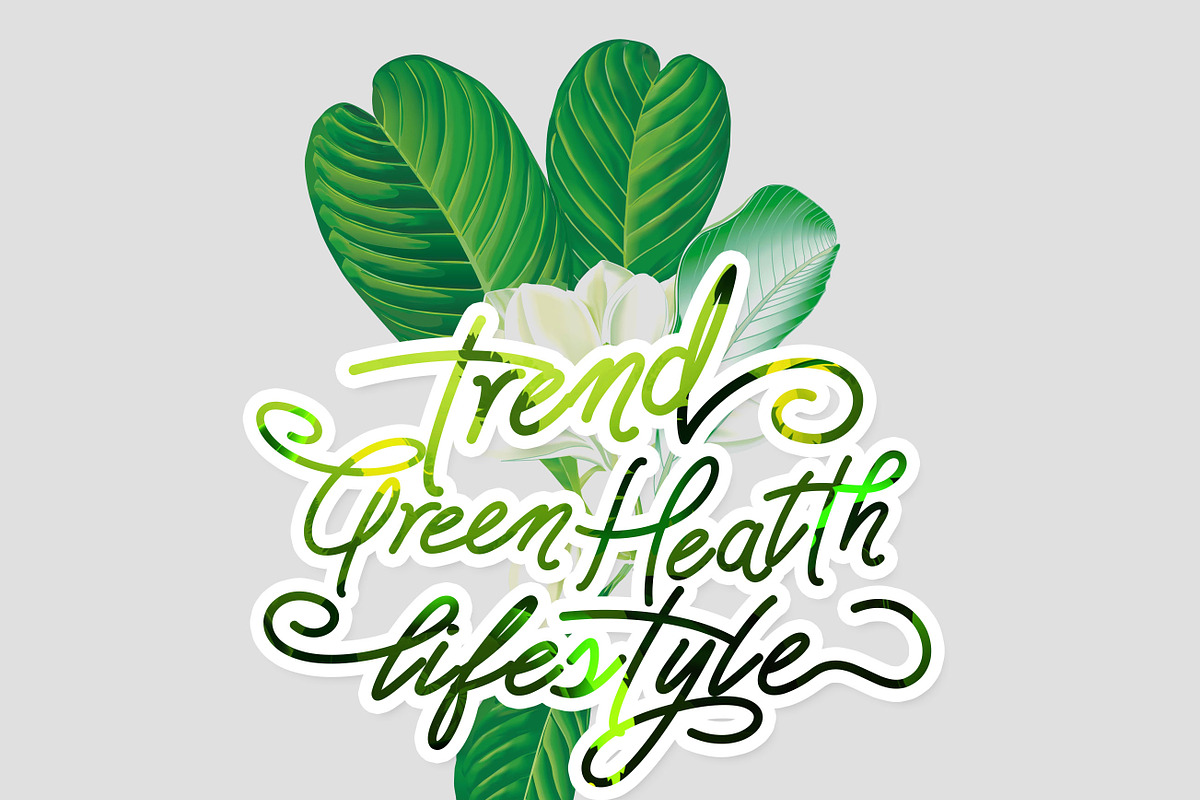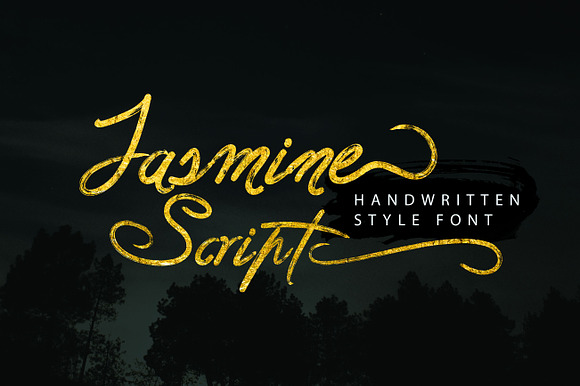
Jasmine Script Font
Jasmine Script is handwritten style font, for branding projects, homeware designs, product packaging.
It includes 2 styles:
smooth strokes, very smooth, beautiful lines .
dry stroke style, rough mad, suitable for signature.